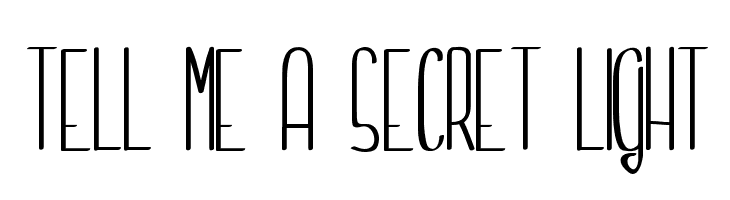
A tall, narrow, and modern font with consistent stroke width and close character spacing.
A flowing, cursive handwritten font with elegant, interconnected characters.
A playful, handwritten font with smooth curves and a casual style.
A playful handwritten font with smooth, flowing curves and a casual feel.
A bold, rounded font with a playful and casual style.
A dynamic and elegant script font with fluid, sweeping letterforms.
A classic serif font with high contrast and elegant curves, featuring unique musical symbols.
A bold, outlined font with a playful and dynamic style.
A modern sans-serif font with clean, geometric letterforms.
A bold, angular font with a dynamic and geometric style.